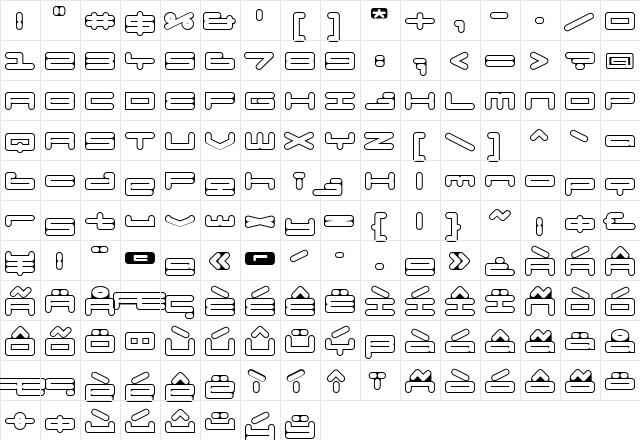
BadExcuse Medium
Design Context for BadExcuse Typeface
BadExcuse is a composed and adaptable typeface that performs quietly and consistently across a wide range of design contexts.